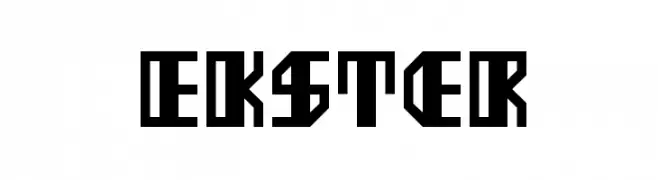
A bold, geometric font with a futuristic and tech-inspired design.
A bold, geometric font with sharp angles and a futuristic style.
A bold, modern font with thick strokes and strong visual impact.
A bold, impactful font with strong strokes and modern appeal.